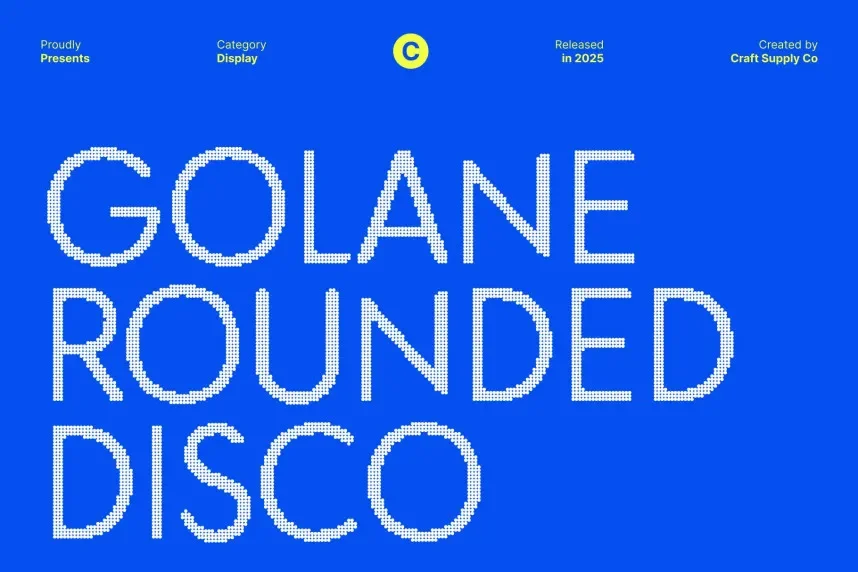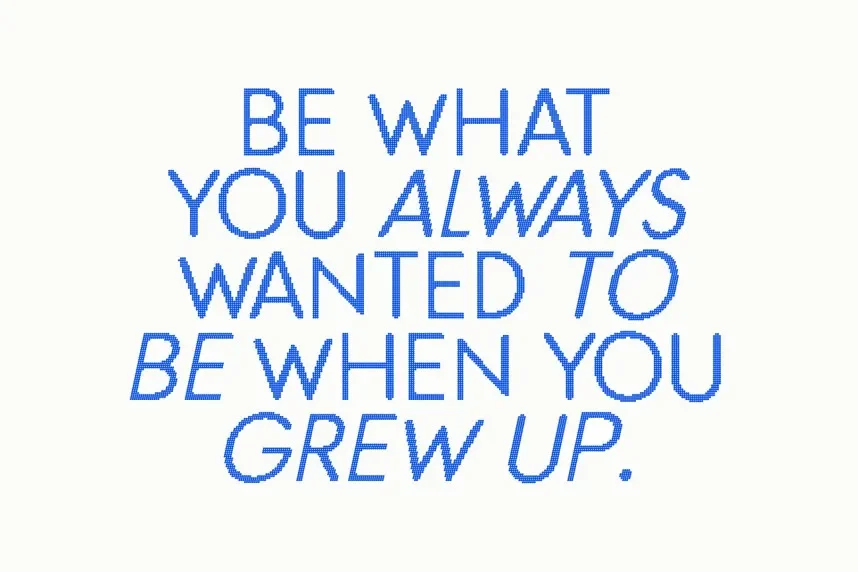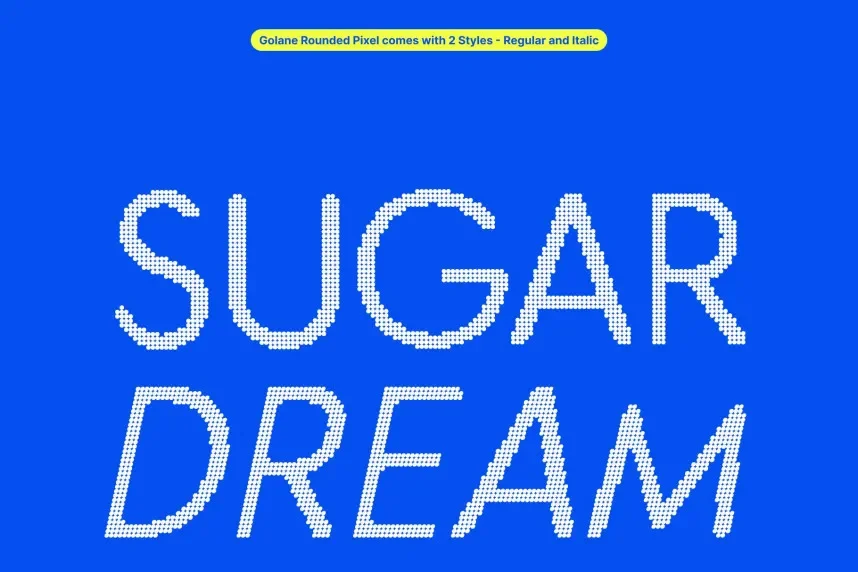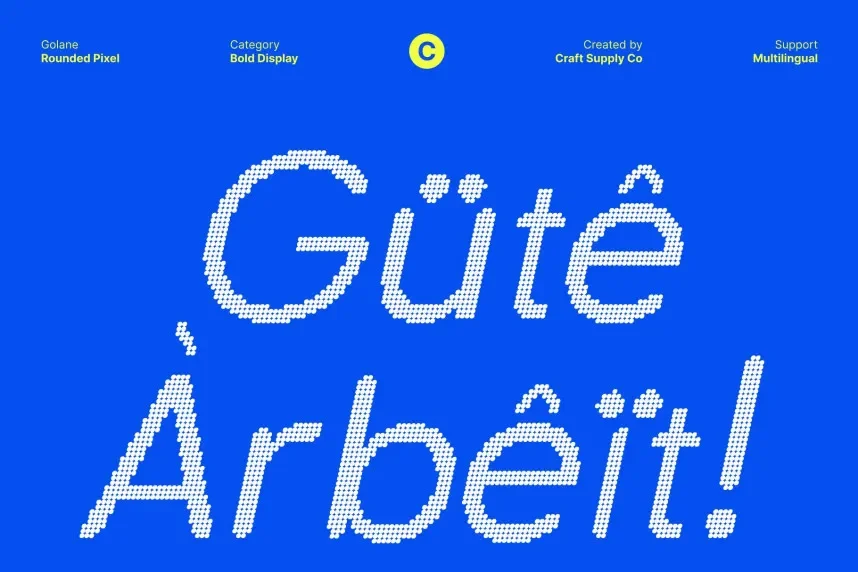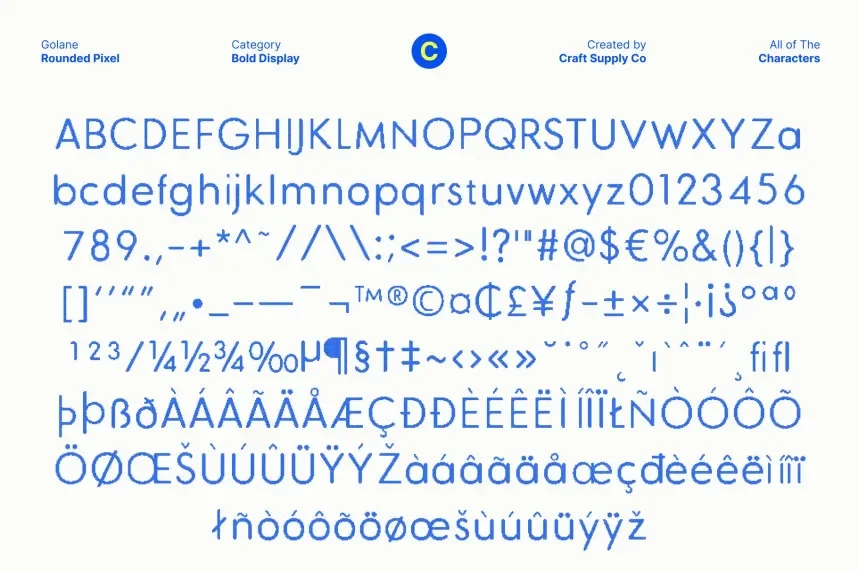
Golane Rounded Disco Font is a playful, retro-inspired display typeface with rounded edges that soften the bold strokes, giving it a unique and approachable vibe. It’s perfect for projects with a fun, energetic style, such as event posters, party flyers, and music branding.